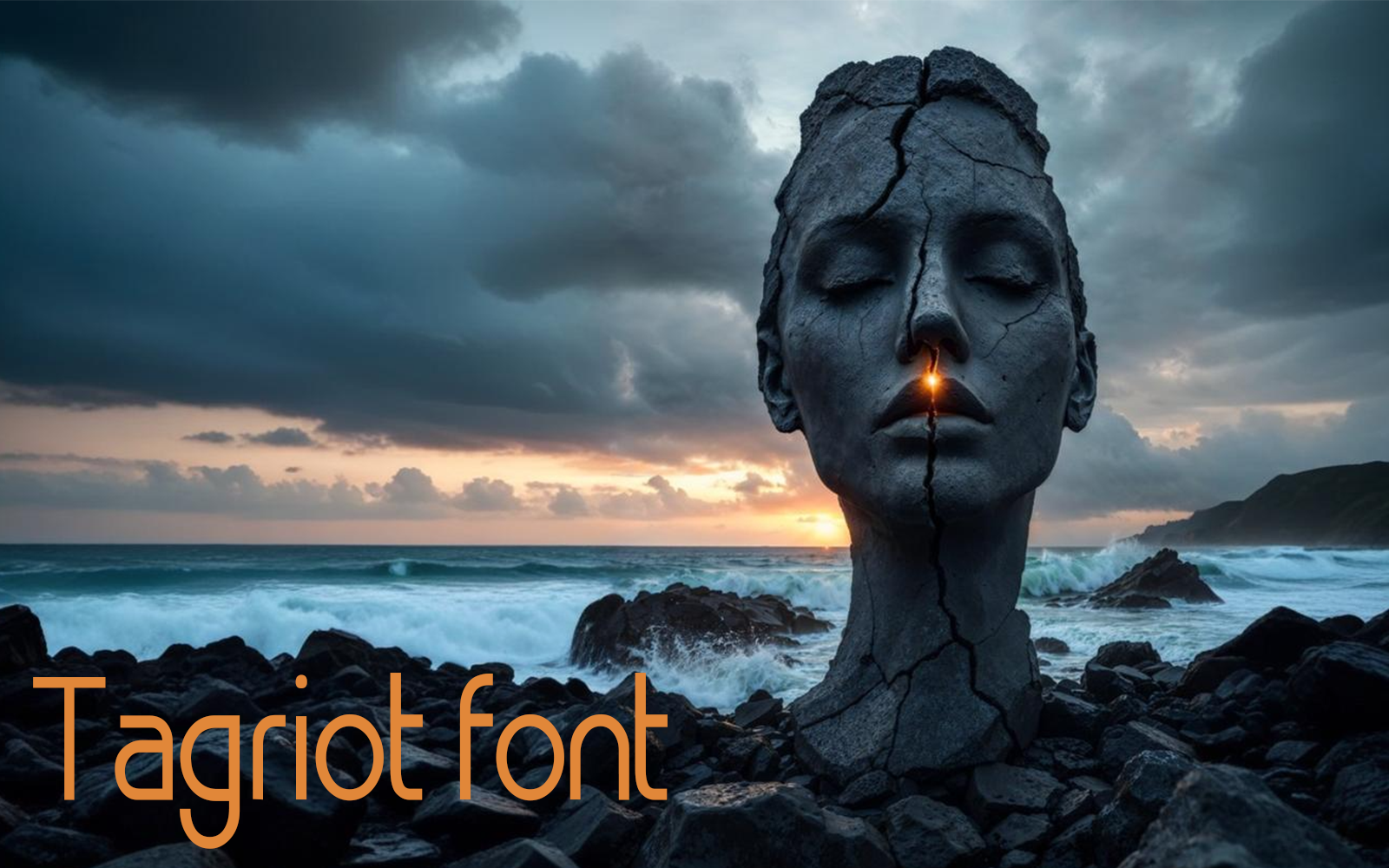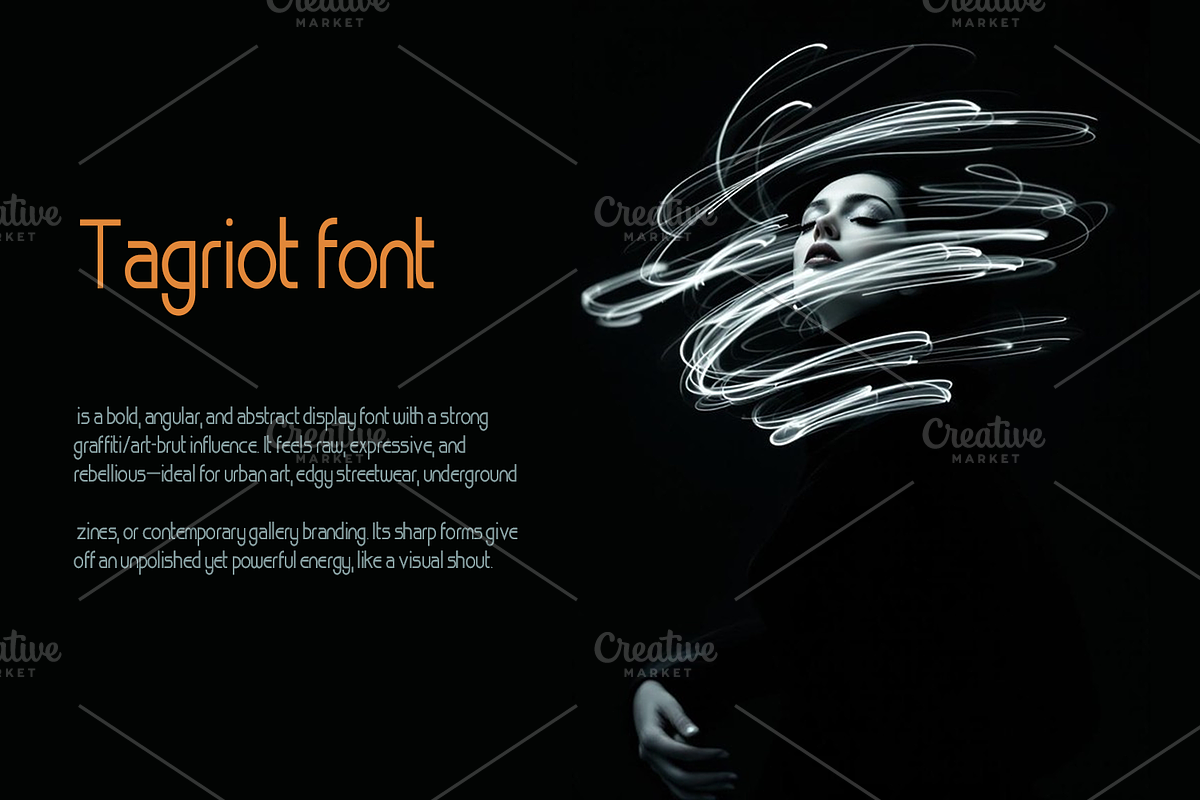
Uncage your creativity with Tagriot—a font born from rebellion and raw edge.
Its brutal angles and unfiltered form bring underground culture to the surface.
Built for the streets, the canvas, and everything between.
Loud, unapologetic, and bursting with visual tension.
Tagriot: Not just letters—visual noise.